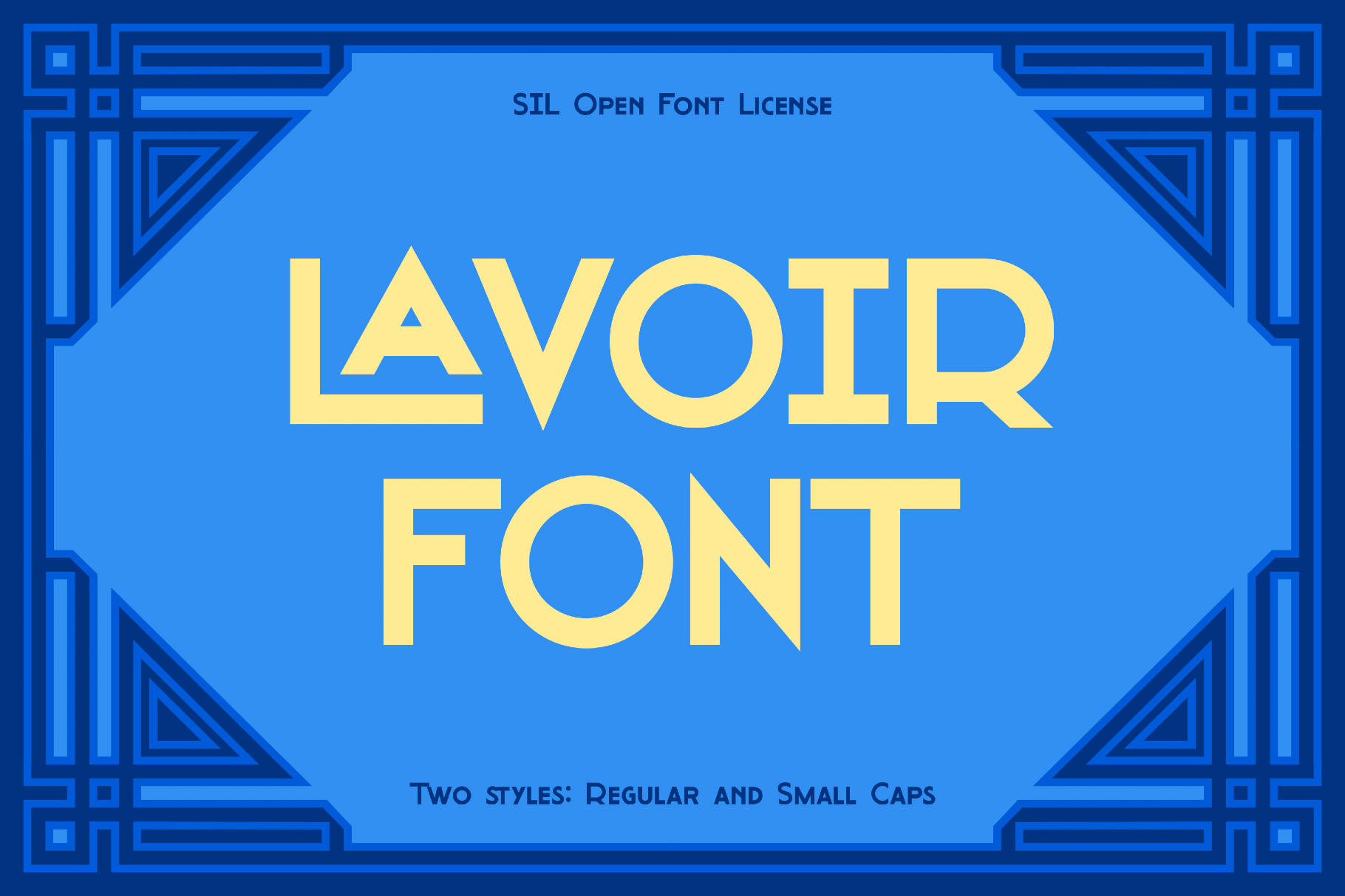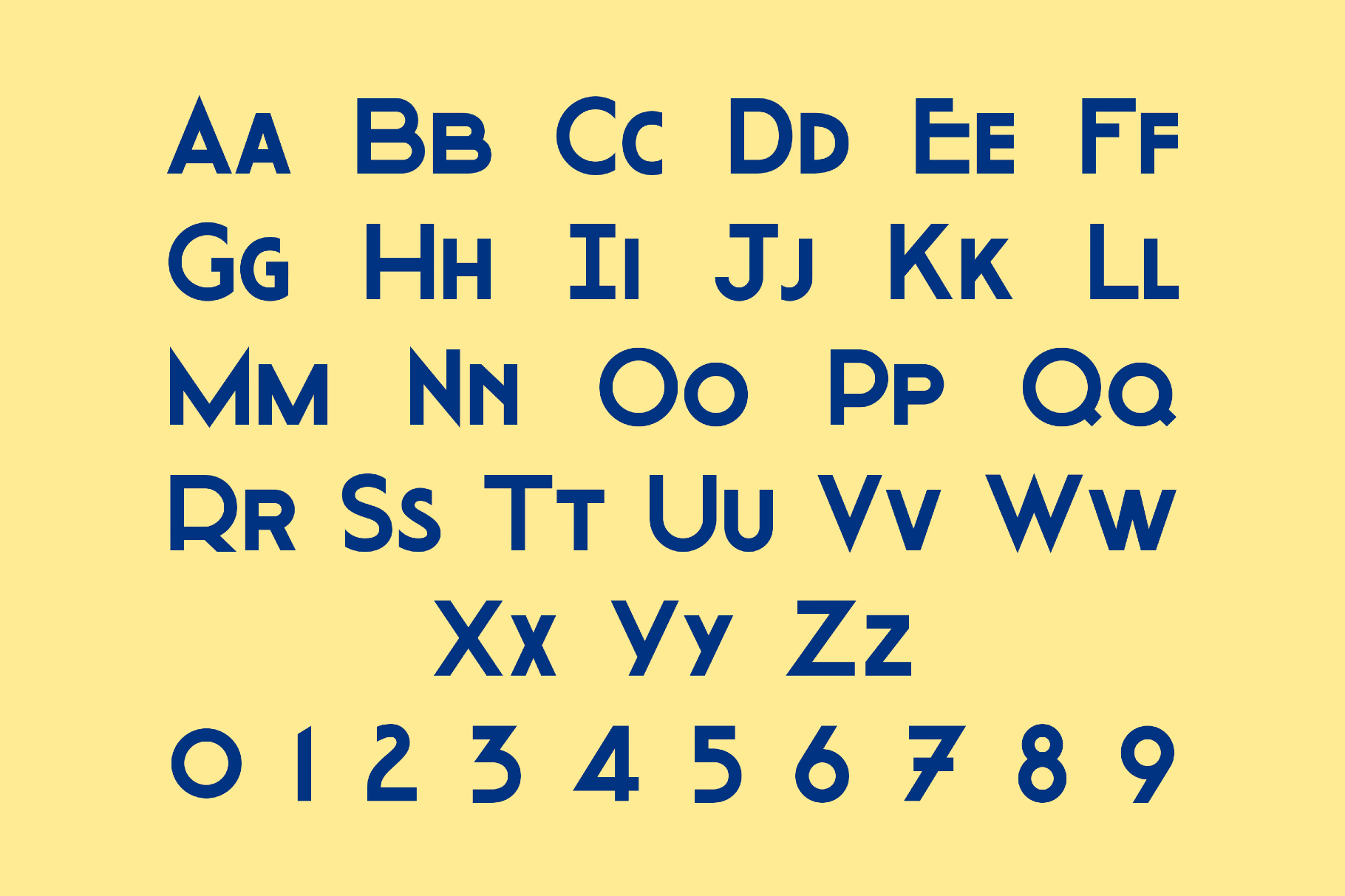
Lavoir Font
Small Caps
Lavoir
Lavoir font evokes Belle Époque shopfront lettering and enamel street signs with sturdy, mosaic-like caps in two complementary styles. Its sculpted curves and crisp terminals are well-suited to luxury branding, packaging fronts, exhibition graphics, magazine covers, café and patisserie menus, poster headlines, architectural signage, wedding stationery, and chapter openers where its ligatures can add a graceful cadence.
- Two styles: Regular and Small Caps.
- Only uppercase letters A–Z.
- Multilingual support for a wide range of European languages.
- Ligatures.